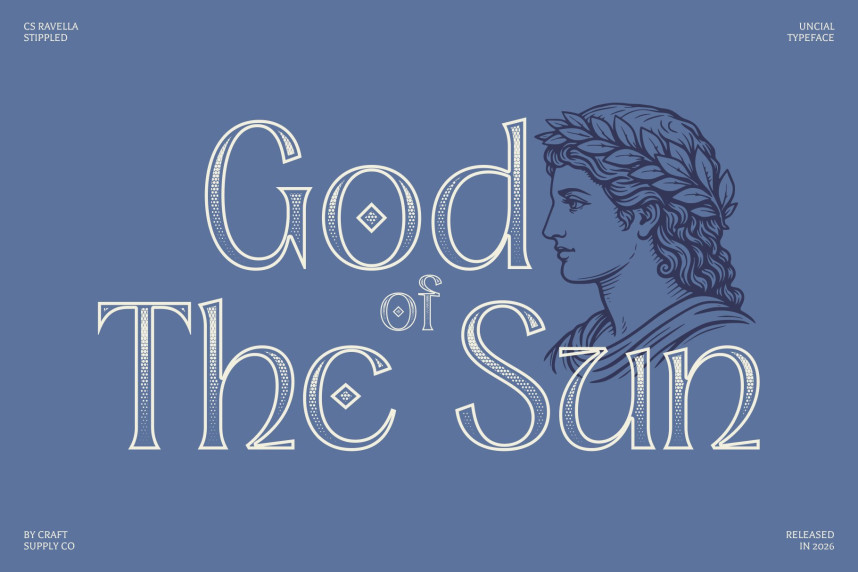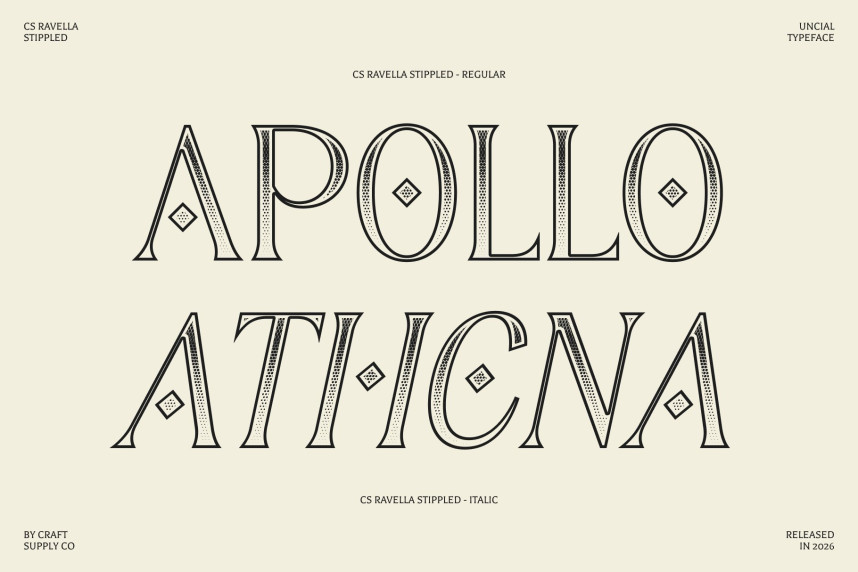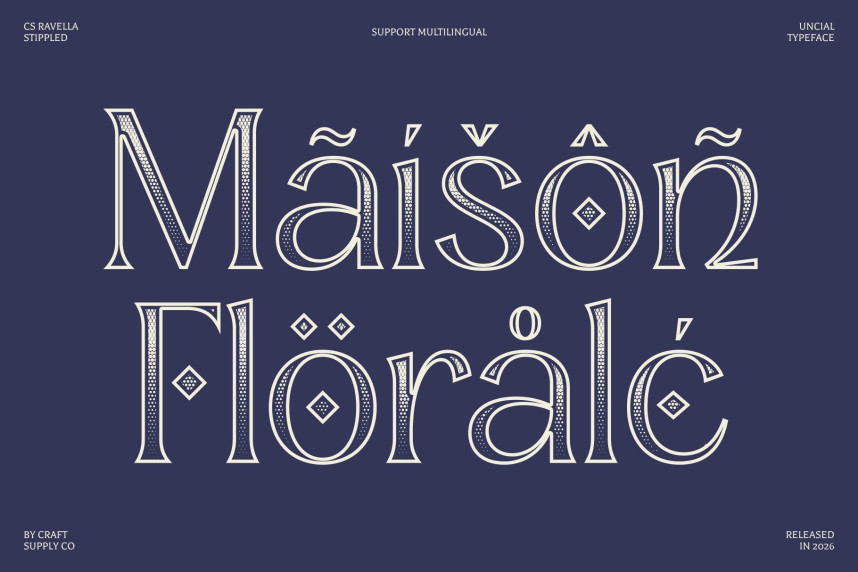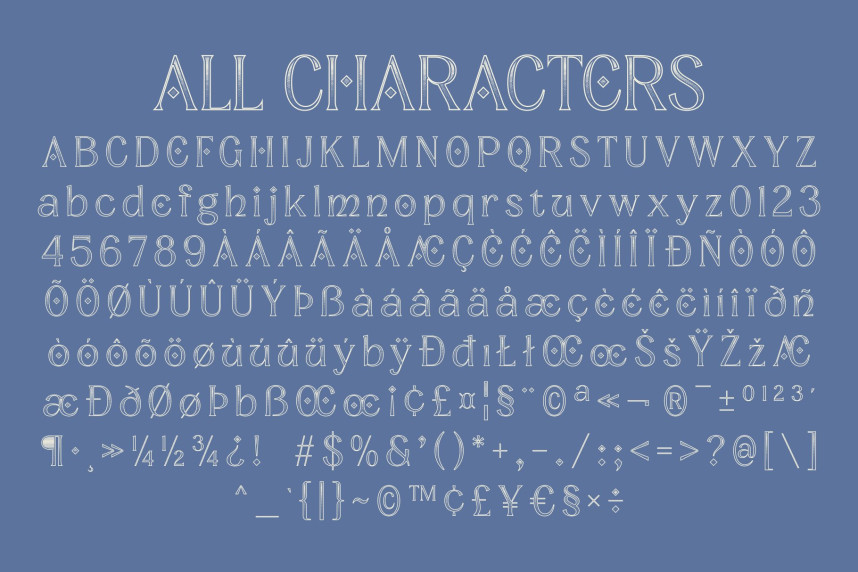
CS Ravella Stippled Font
CS Ravella Stippled Font – Uncial Font with Historical Elegance
Uncial Font with Historic Letterforms
This is a display font inspired by uncial script traditions, reflecting the timeless artistry of ancient manuscripts. Its rounded, flowing letterforms carry a strong sense of heritage while being reinterpreted through a modern design lens. The addition of a stippled texture enhances its handcrafted feel, evoking the look of inked impressions on aged parchment and reinforcing its historical depth.